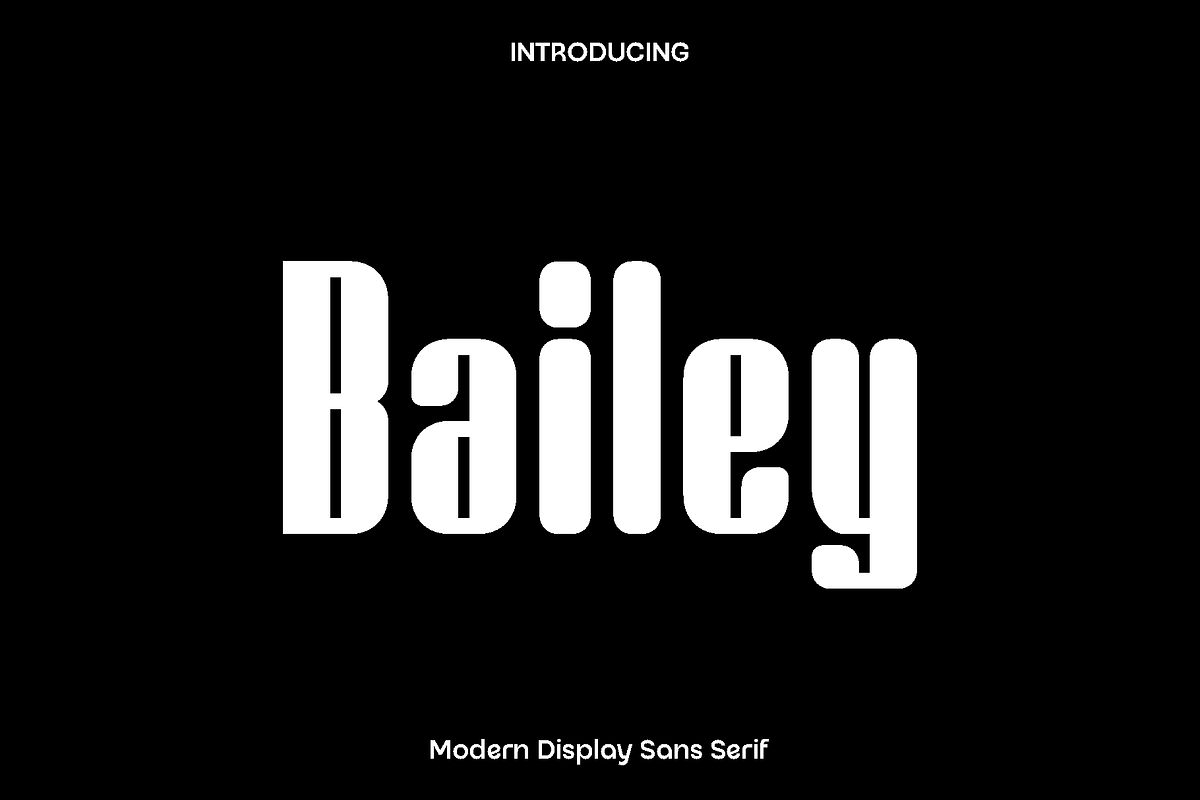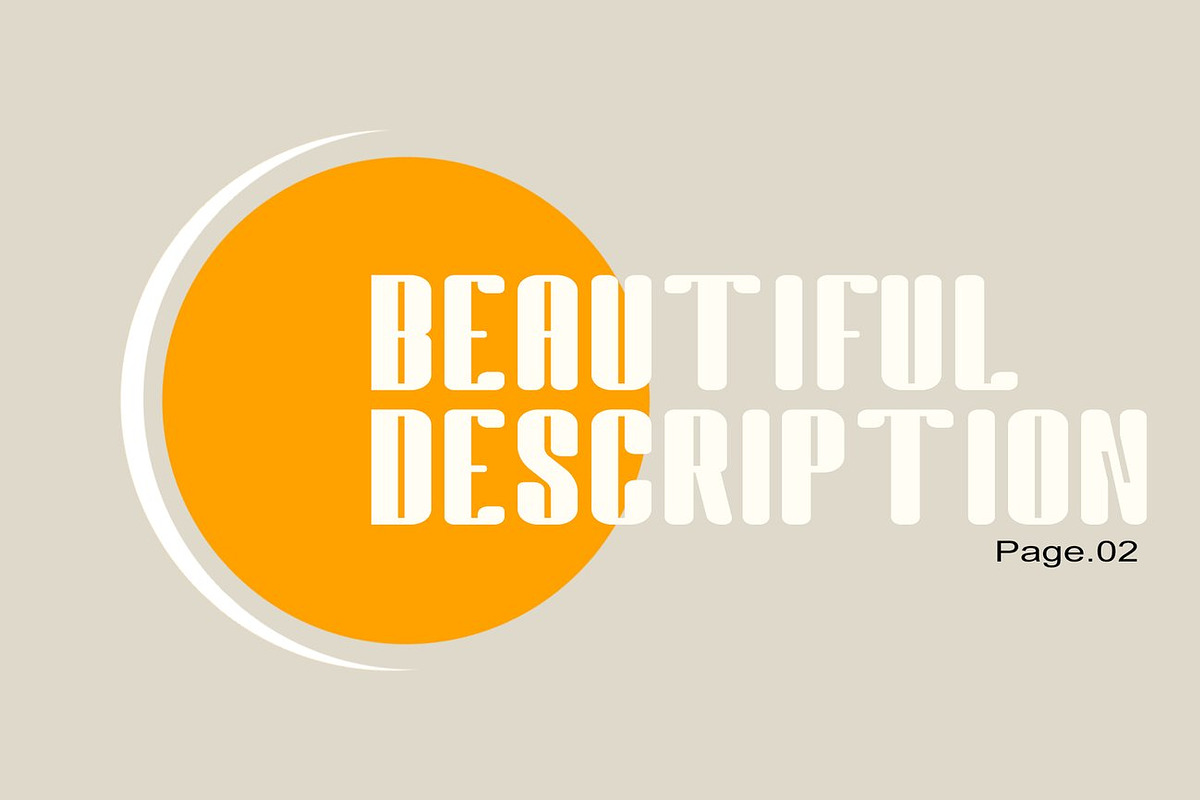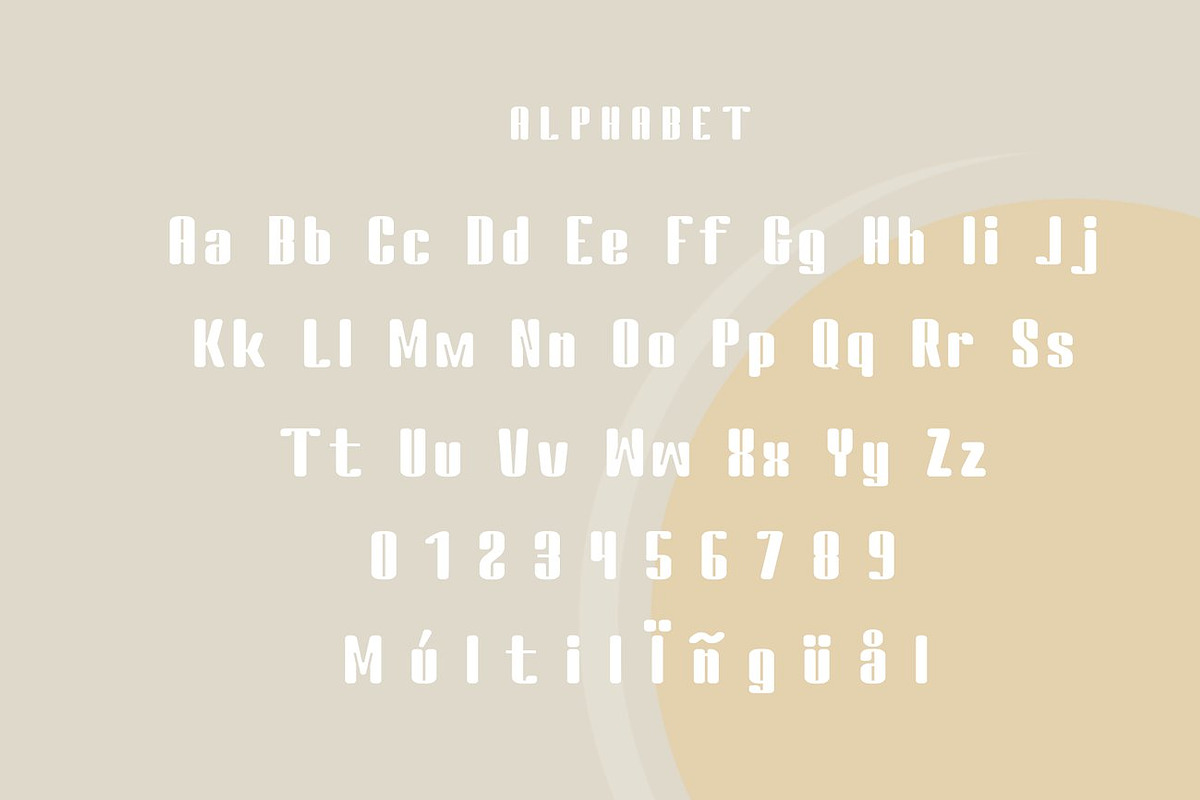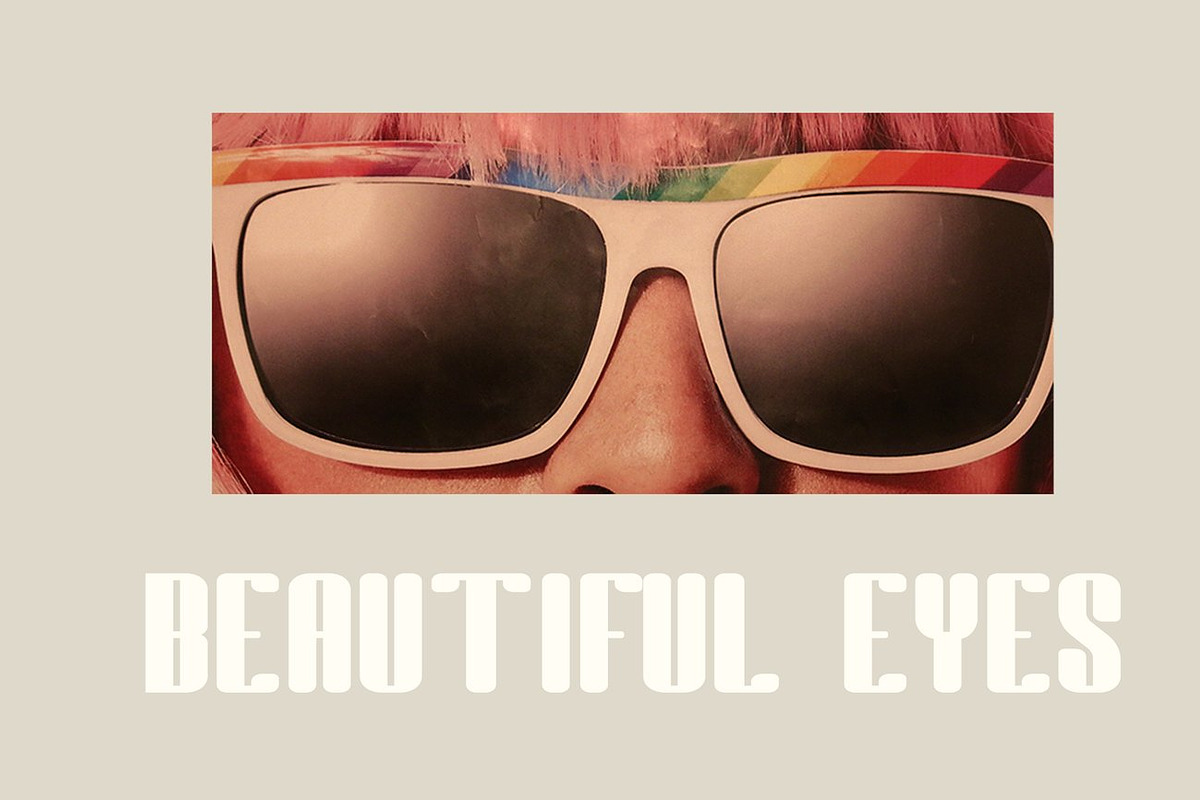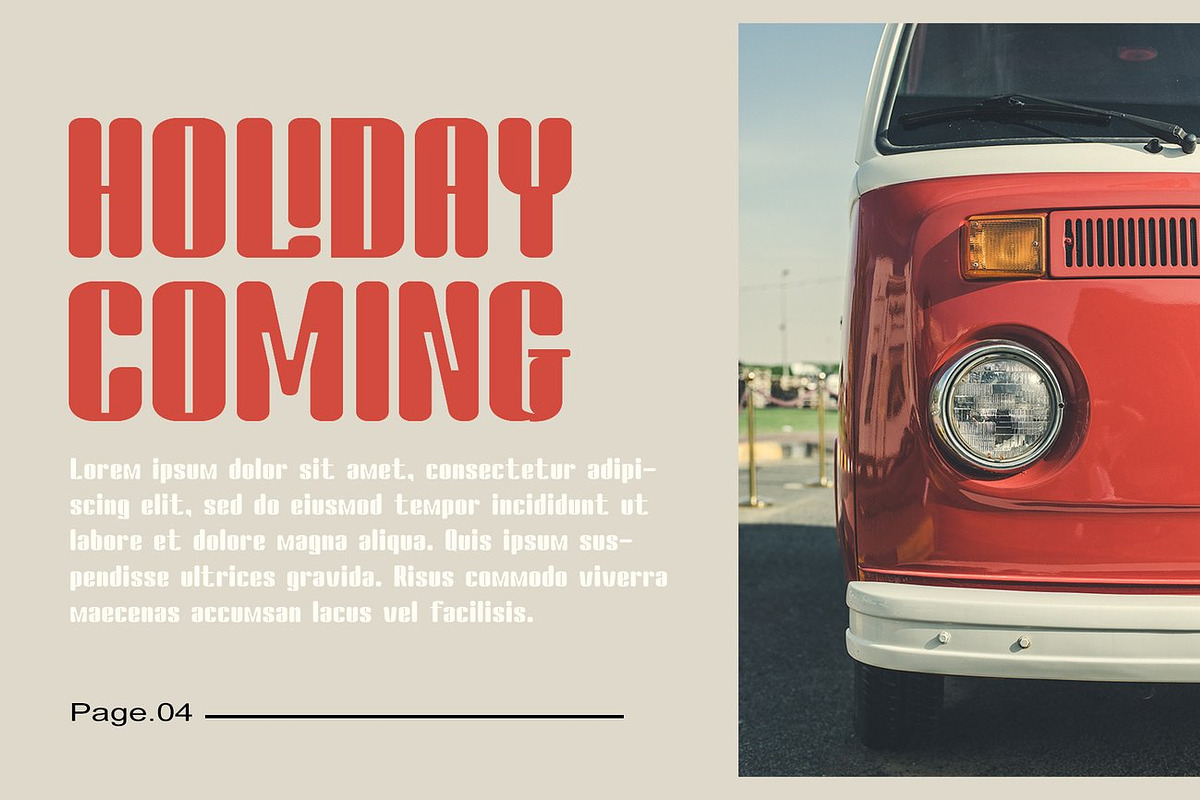
Bailey - Elegant Sans Serif
Bailey is a thoughtfully crafted display font designed to bring charm, confidence, and creativity to your designs. Created with a clean all caps structure, Bailey delivers a balanced blend of modern simplicity and playful character. Its clear shapes and smooth strokes give it a friendly yet professional feel, making it easy to use across a wide range of creative projects.
This font truly shines in branding, Procreate lettering, craft projects, home decor, invitations, social media graphics, and custom merchandise. Bailey feels bold without being overpowering, allowing your message to stand out while remaining stylish and approachable. Its all caps style makes it especially effective for logos, quotes, headlines, stickers, signage, and decorative designs that need clarity and impact.
Bailey was designed for creators who value flexibility and ease of use. With support for numbers, punctuation, and multilingual characters, it adapts effortlessly to both digital and print applications. Whether you are designing for personal projects or professional branding, Bailey brings a polished and creative touch that feels fresh, modern, and versatile.
Bailey Font Features:
• All caps glyphs
• Numbers and basic punctuation
• Multilingual character support
Bailey is the perfect choice for designers and crafters looking for a dependable display font that adds personality and style to every project.